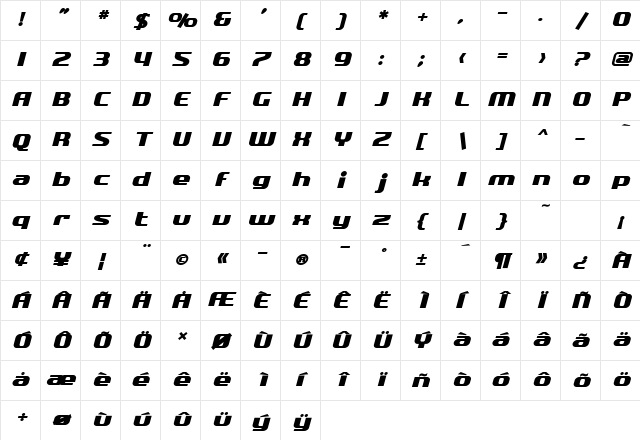
SF Quartzite Bold Oblique
Complete SF Quartzite Bold Oblique glyph index. Displaying only characters natively supported by SF Quartzite Bold Oblique font.
Design Context for SF Quartzite
SF Quartzite is a composed and adaptable typeface that performs quietly and consistently across a wide range of design contexts. The slanted form adds forward momentum and visual energy. Its bold stroke weight gives it real presence on the page.
Pro Tip: Use SF Quartzite for emphasis, pull quotes, and subheadings where its slanted energy can add rhythm to the layout.